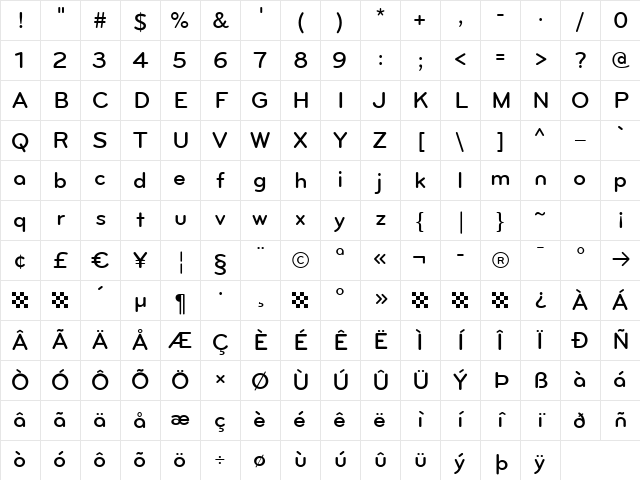
Bryant Regular Free Font
Bryant Regular
Complete Bryant Regular glyph index. Displaying only characters natively supported by Bryant Regular font.
Design Context for Bryant
Bryant is a composed and adaptable typeface that performs quietly and consistently across a wide range of design contexts.